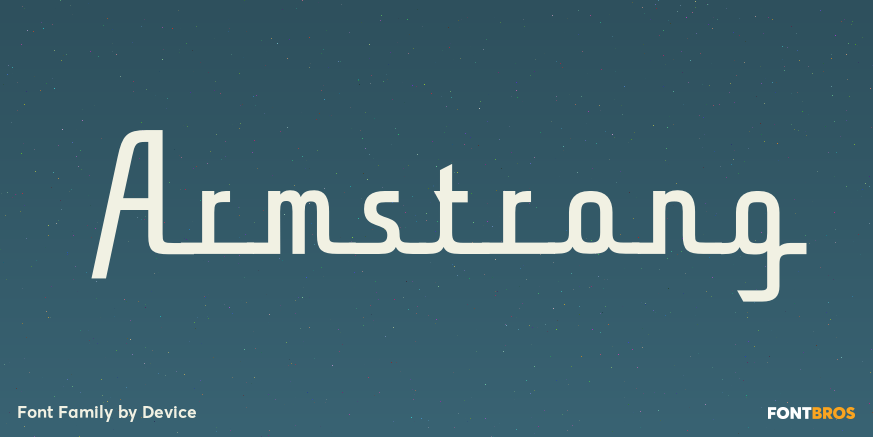
Armstrong
About Armstrong
A geometric linking script that uses OpenType programming to replace beginning and ending characters with uniquely designed variants. Plus swashes and ligatures. (Note: Please view the image above for correct end and beginning letters, as they will appear…